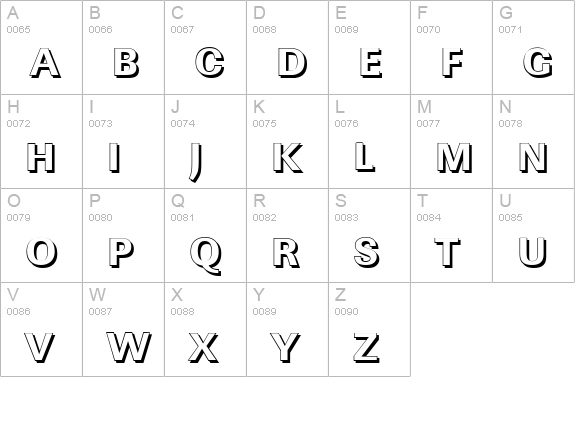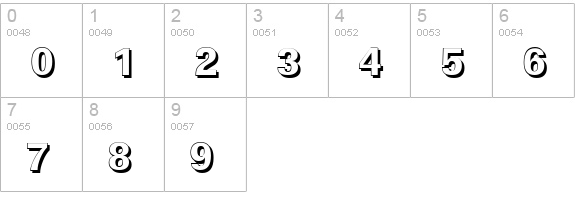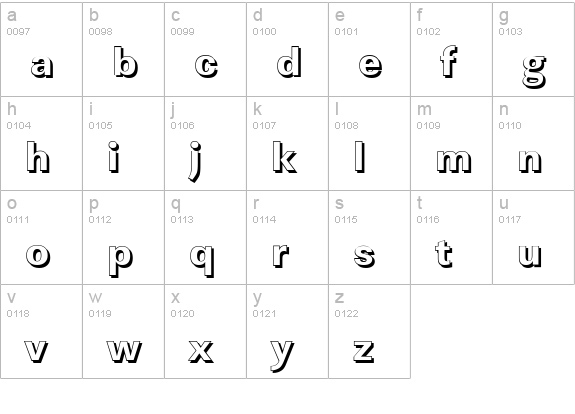
LinearSh-Xbold-Regular is the standard, neutral variant in the LinearSh typeface family \xE2\x80\x94 well suited to general body text, paragraphs, and standard typographic work.
LinearSh-Xbold-Regular font is a modern and sleek typeface that exudes sophistication and professionalism. With its clean lines and bold weight, this font is perfect for creating striking headlines and eye-catching designs. The versatility of LinearSh-Xbold-Regular makes it suitable for a wide range of design projects, from branding to editorial layouts. What sets LinearSh-Xbold-Regular apart is not only its stylish appearance but also the fact that it is available for free download at FontsMarket.com. This means that designers and creatives can easily access this high-quality font without any cost, making it a valuable addition to any font library. Whether you are working on a personal project or a client's design, LinearSh-Xbold-Regular is a versatile and reliable font choice that will elevate your work to the next level.